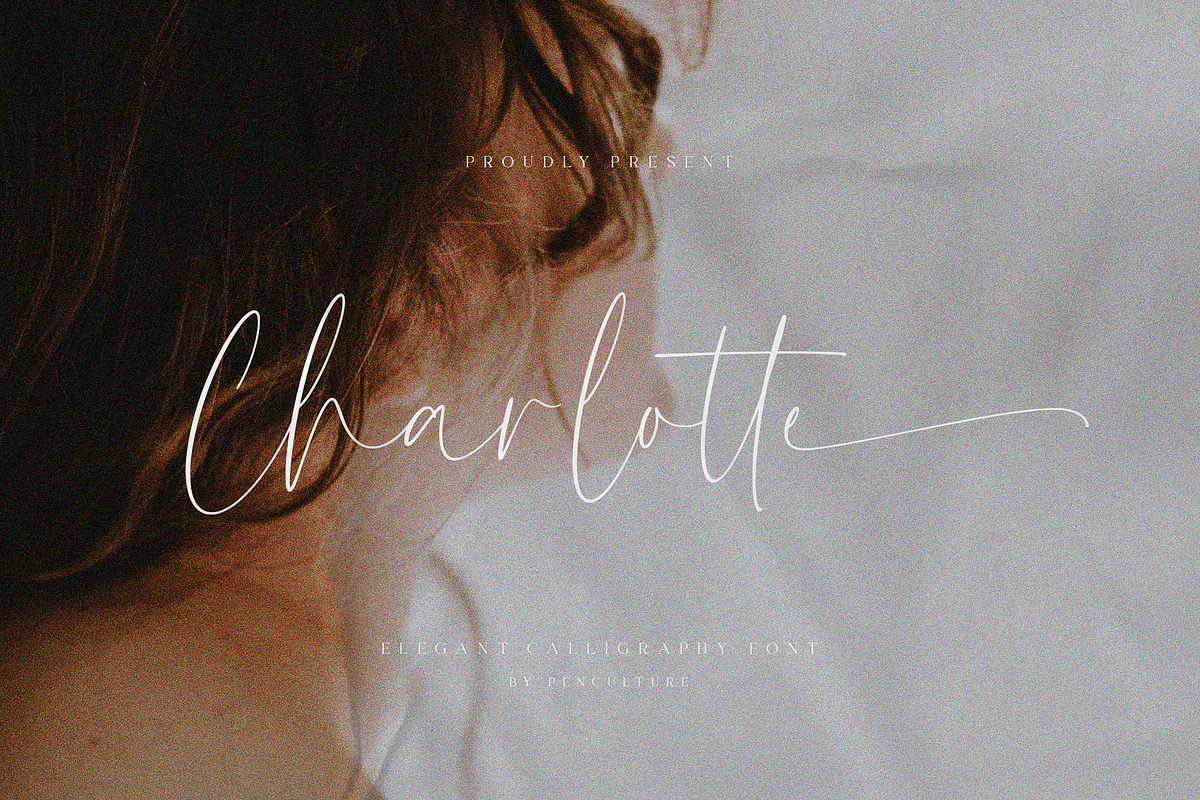
You must purchase this font for commercial use. However, you can download Charlotte - Elegant Calligraphy Font Free Download for testing purposes. Charlotte is a refined and sophisticated calligraphy font that blends elegance with a personal, handwritten feel. Perfect for wedding invitations, logos, branding, greeting cards, and any project that requires a graceful, artistic touch.
With its flowing curves and beautifully crafted letterforms, Charlotte exudes luxury and class, making it ideal for high-end, elegant designs. Whether you're working on a chic invitation suite, a refined logo, or a luxury product brand, this font will elevate your typography with its timeless, graceful style.